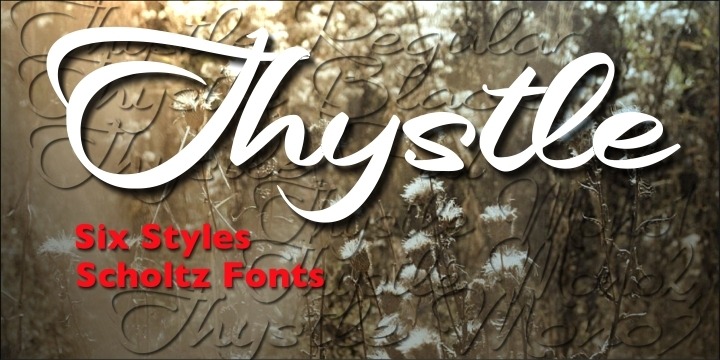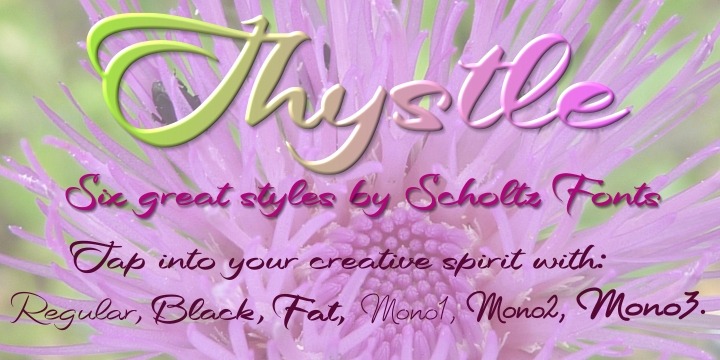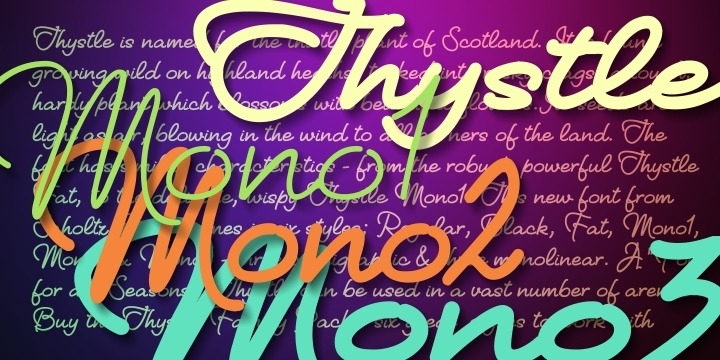
Thystle
Font Family by Scholtz Fonts
Buy NowThystle is a ?font for all seasons?. It has six styles ranging from fine to in-your-face, from delicate mono-weight pen strokes to fully calligraphic lines, from delicate, narrow characters to bold, powerful statements. Characteristically, all the styles abound with Anton Scholtz's energetic ?creative common? style - extravagant capitals, clear characters, and bursting-with-life swashes.
Opentype features include alternative upper case characters, as well as a number of ligatures.
Thystle contains over 283 characters - (upper and lower case characters, punctuation, numerals, symbols and accented characters for both Text and Display caps). It has all the accented characters used in the major European languages.